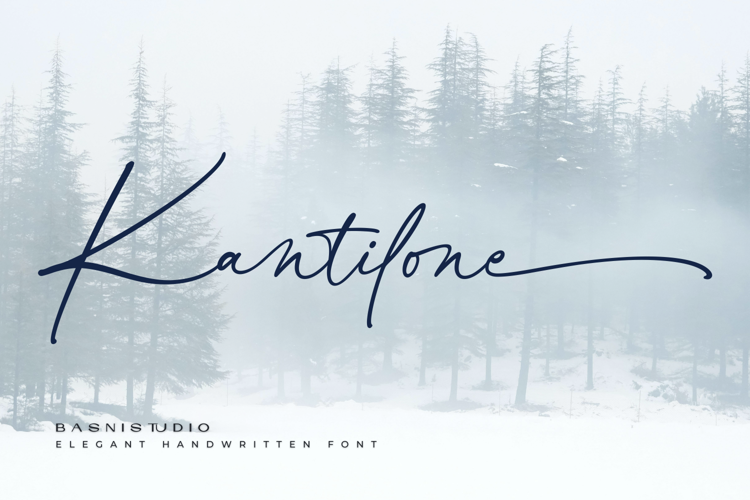
Kantilone Font
Kantilone Elegant handwritten font crafted with authentic Brush for Natural & Casual touch for everything from branding and social media to invitations and packaging.